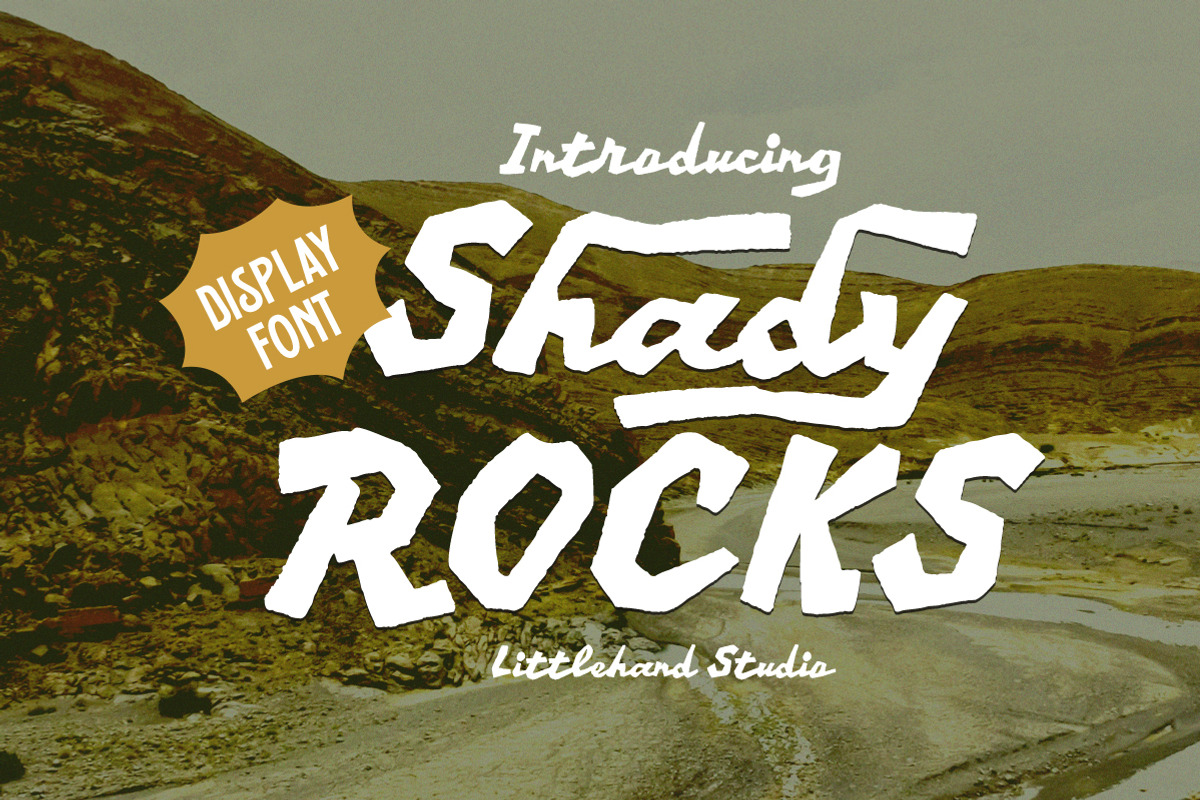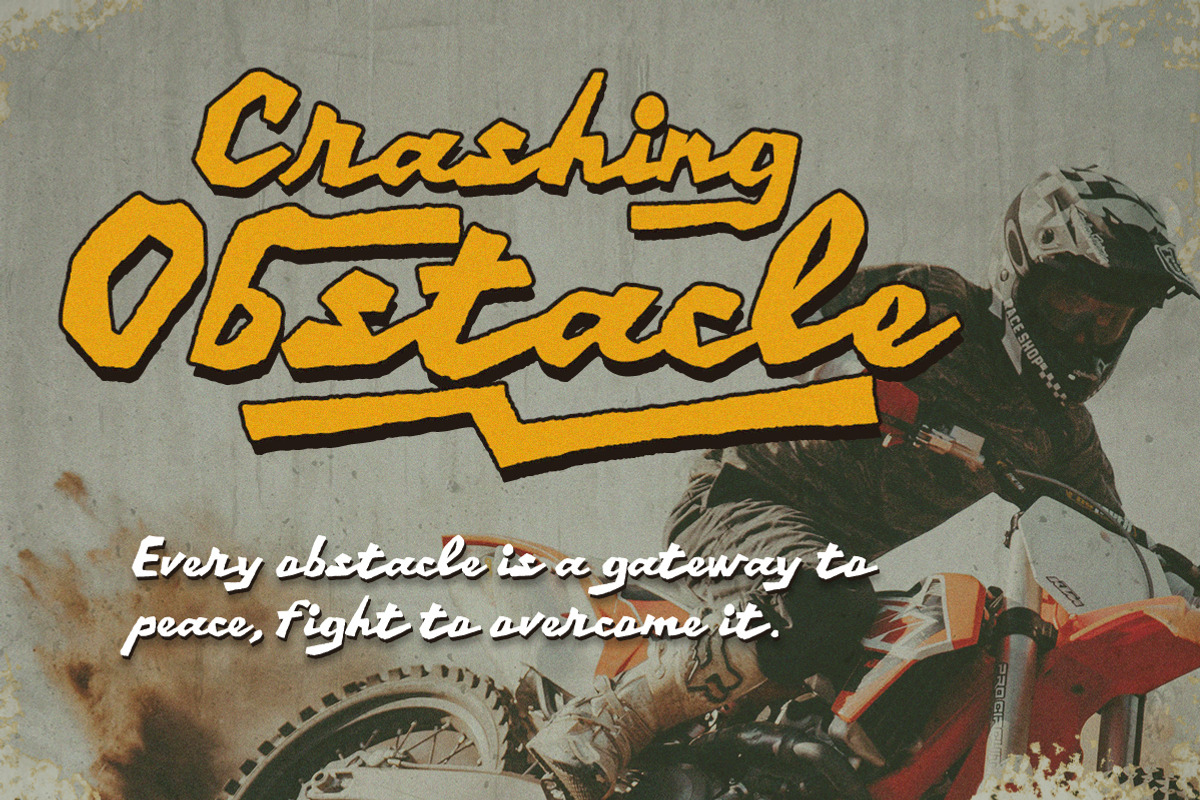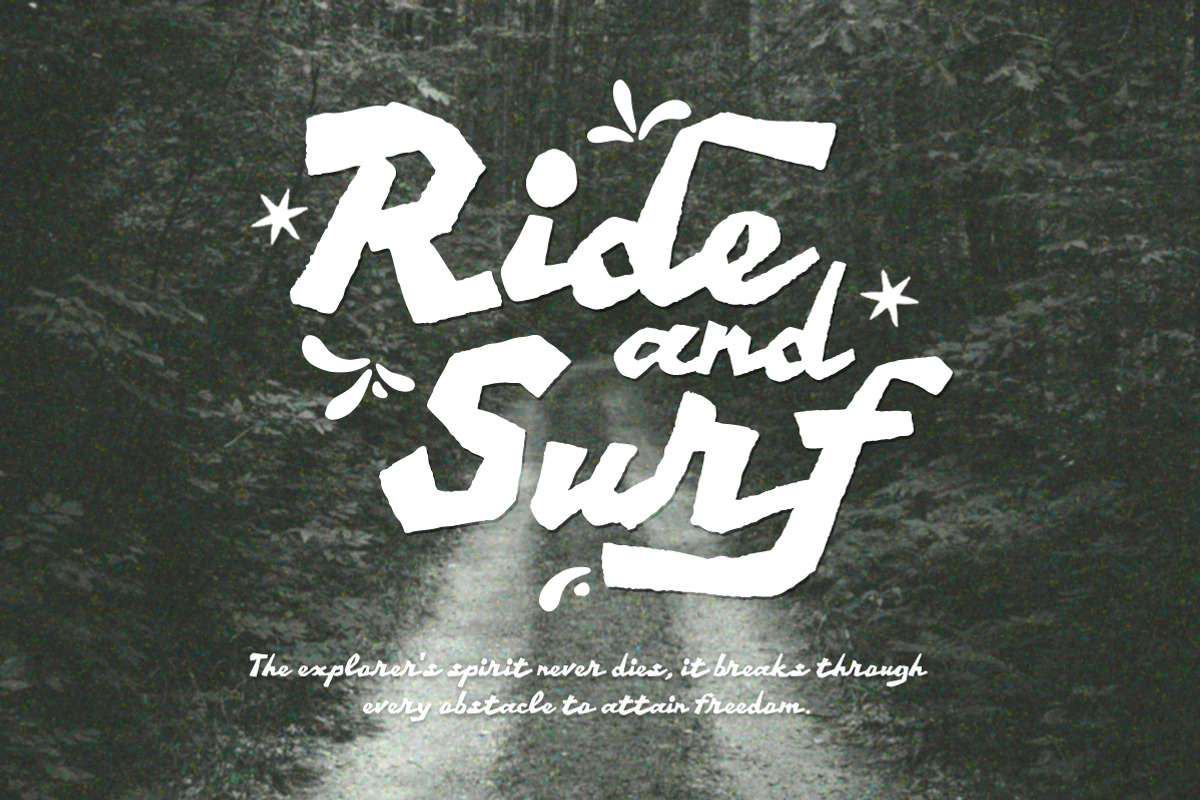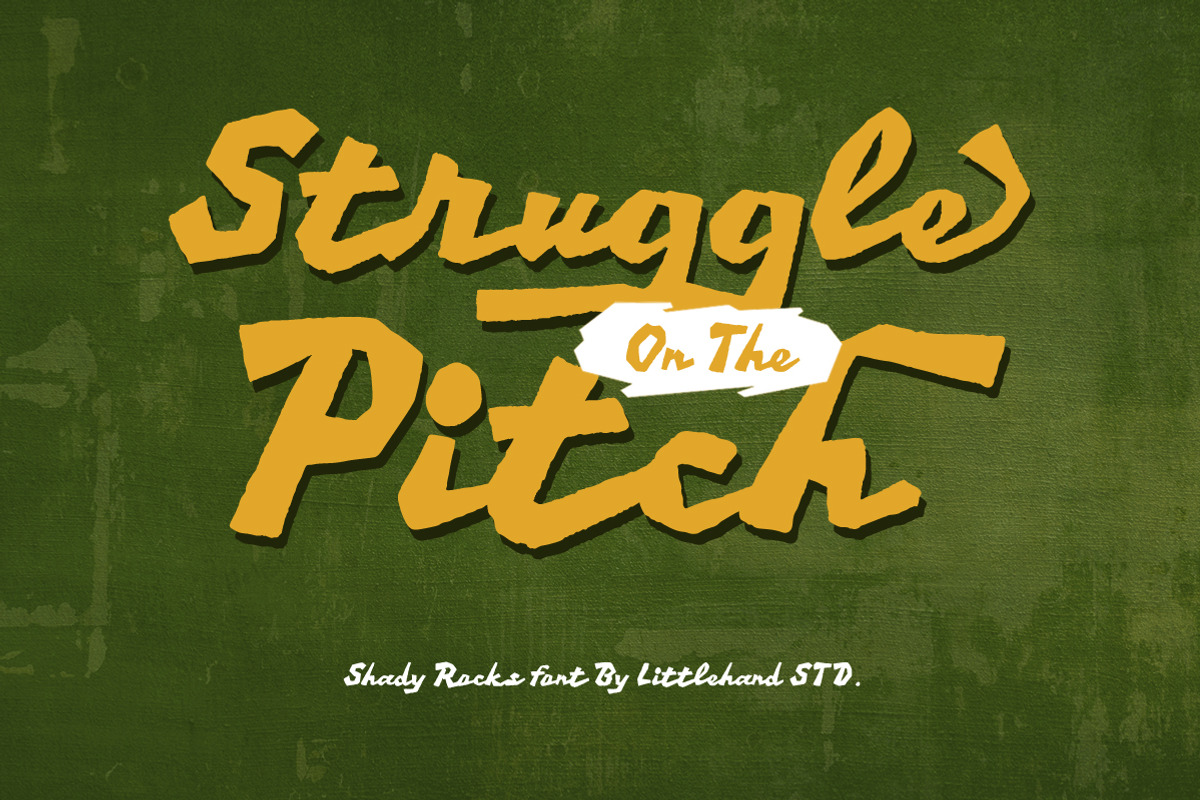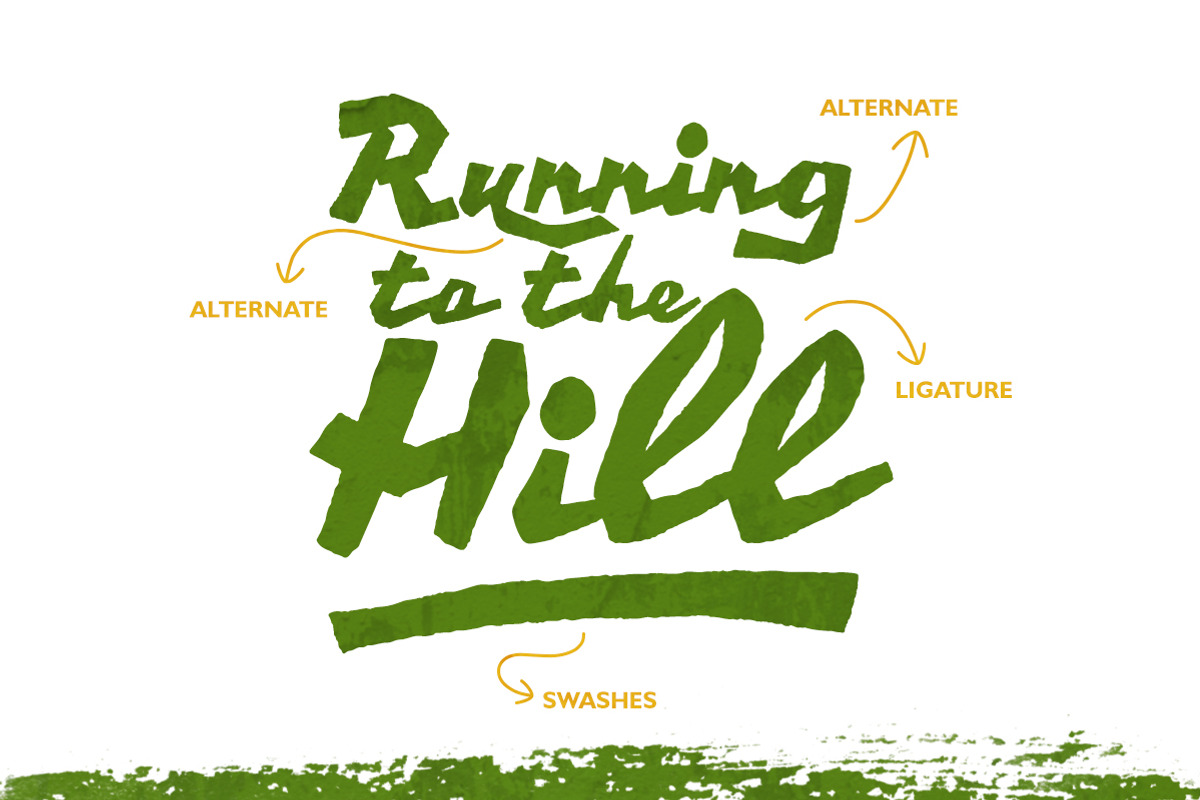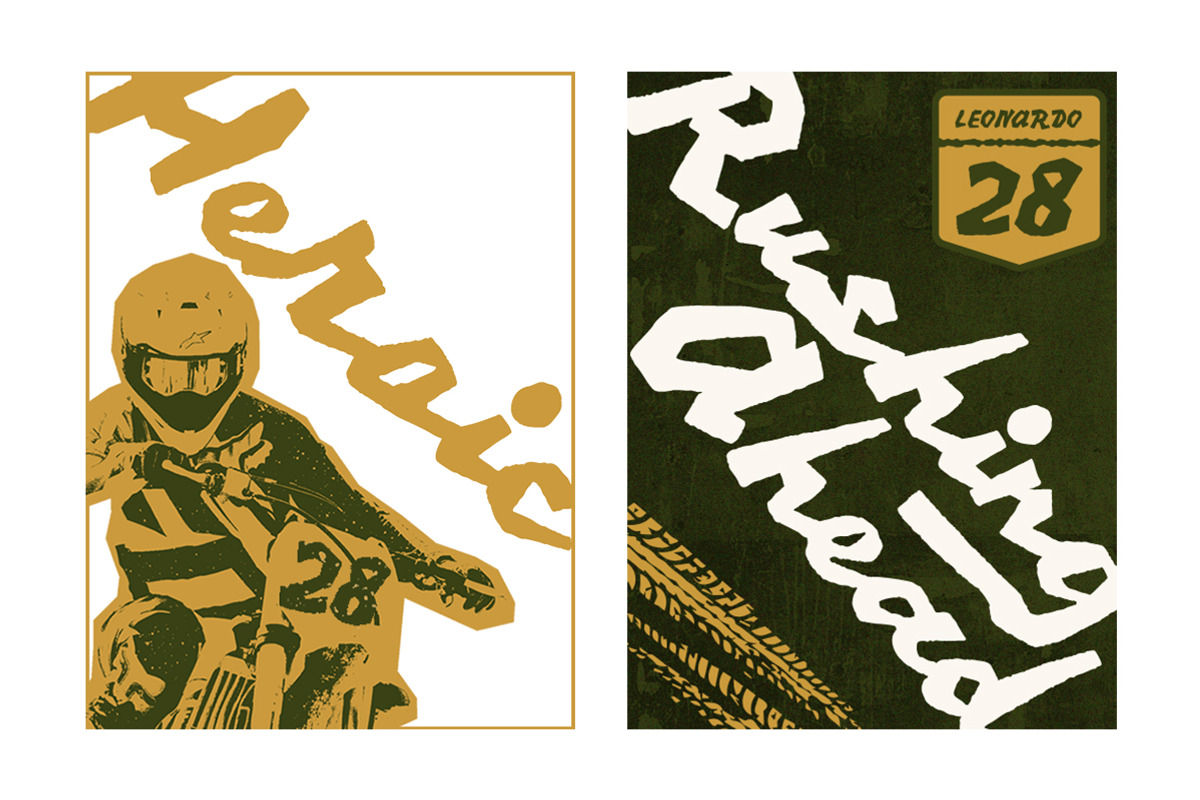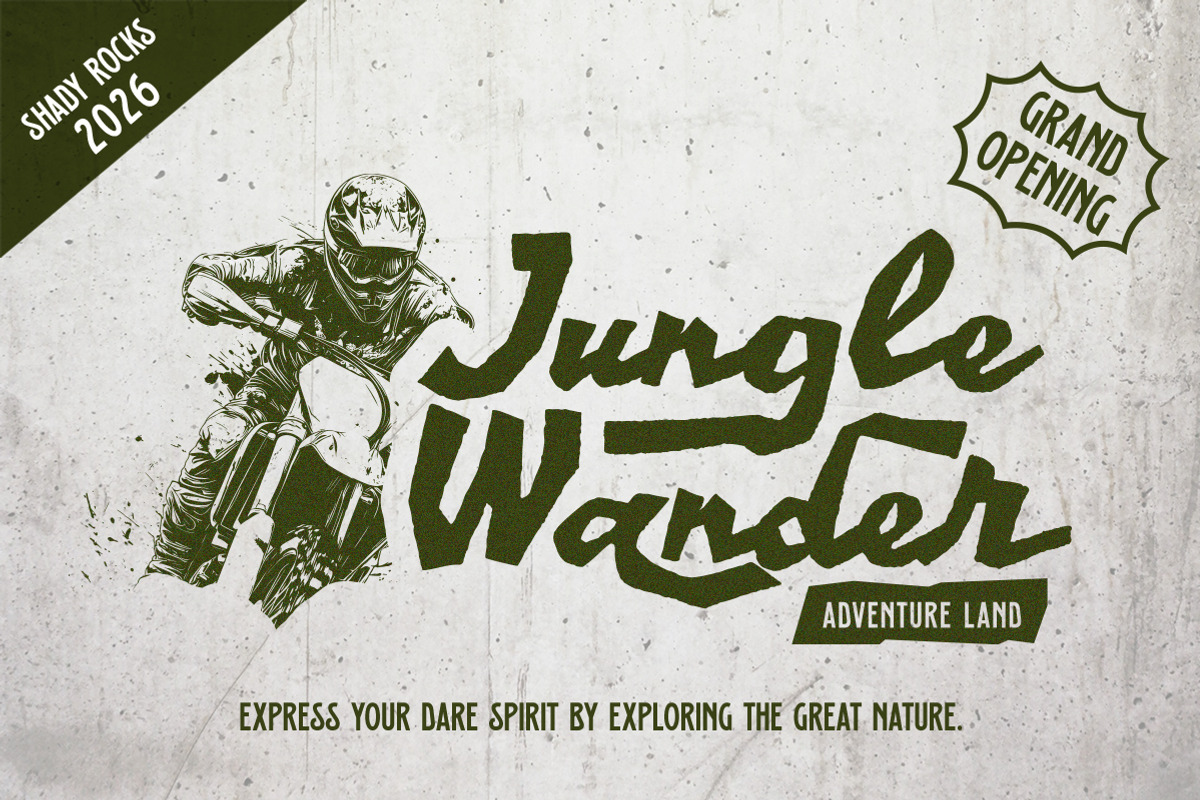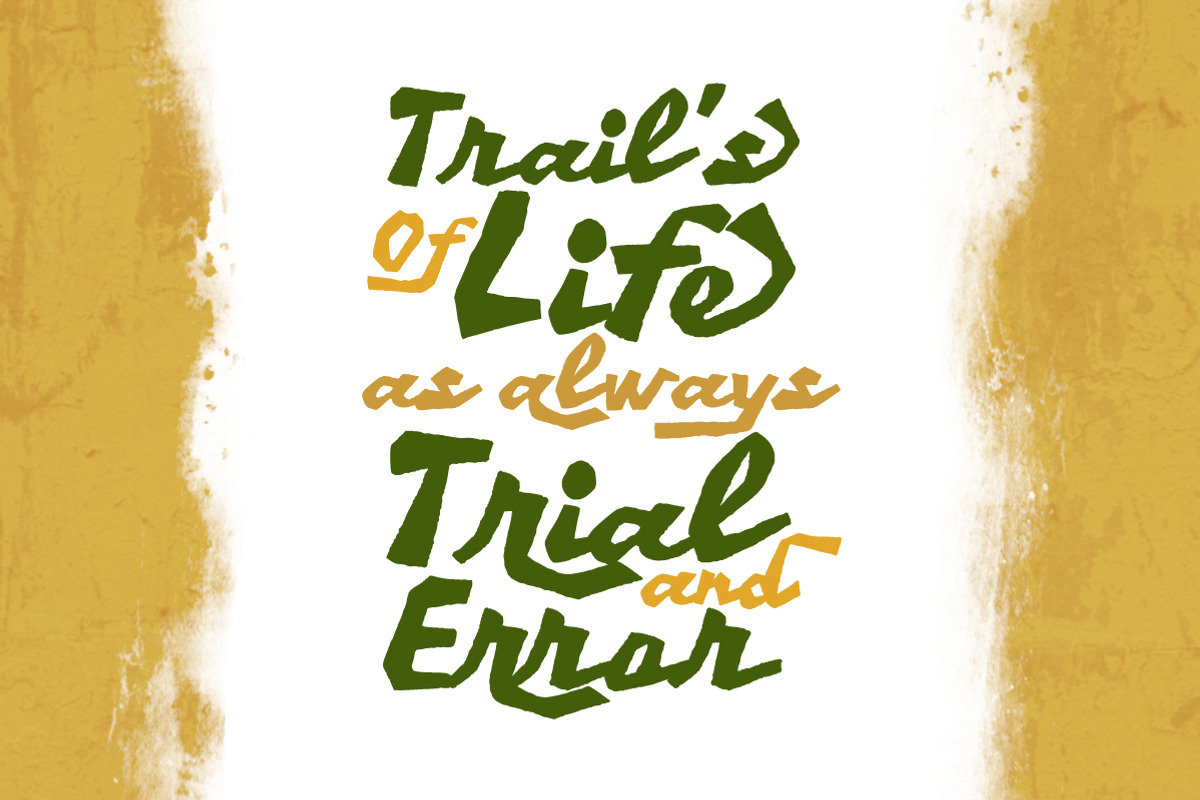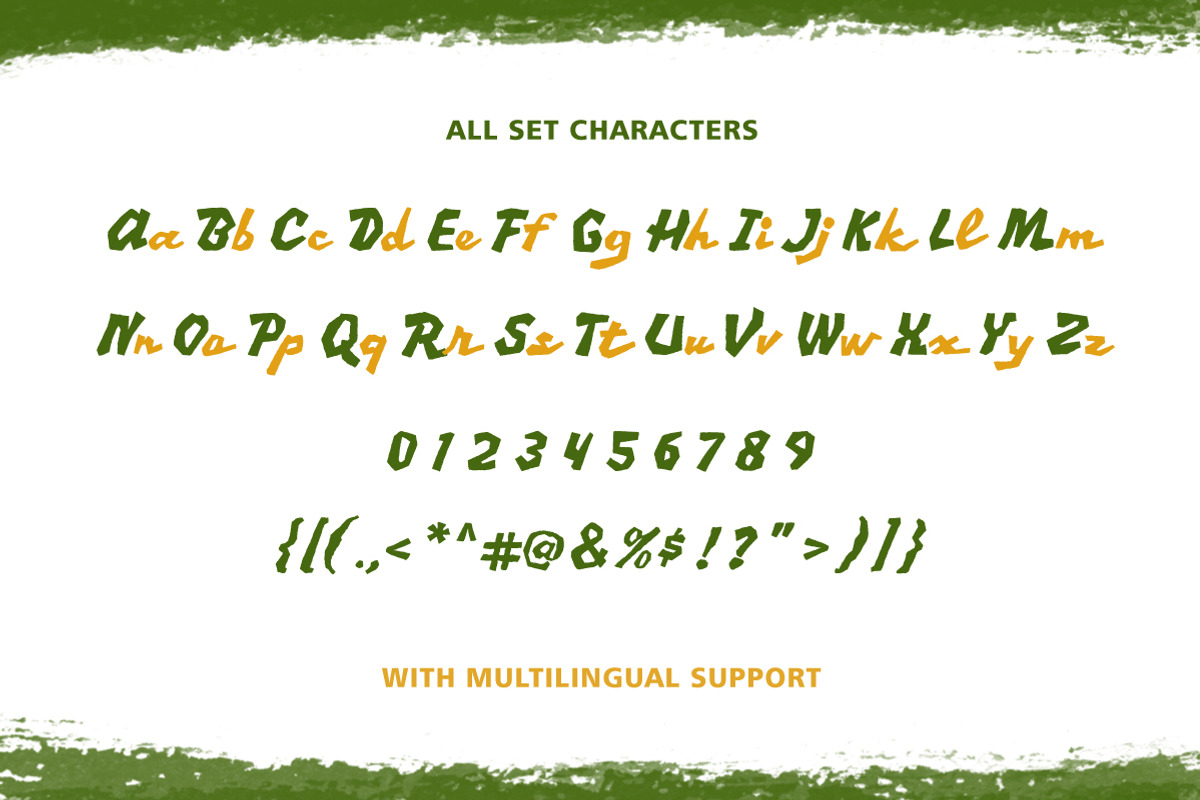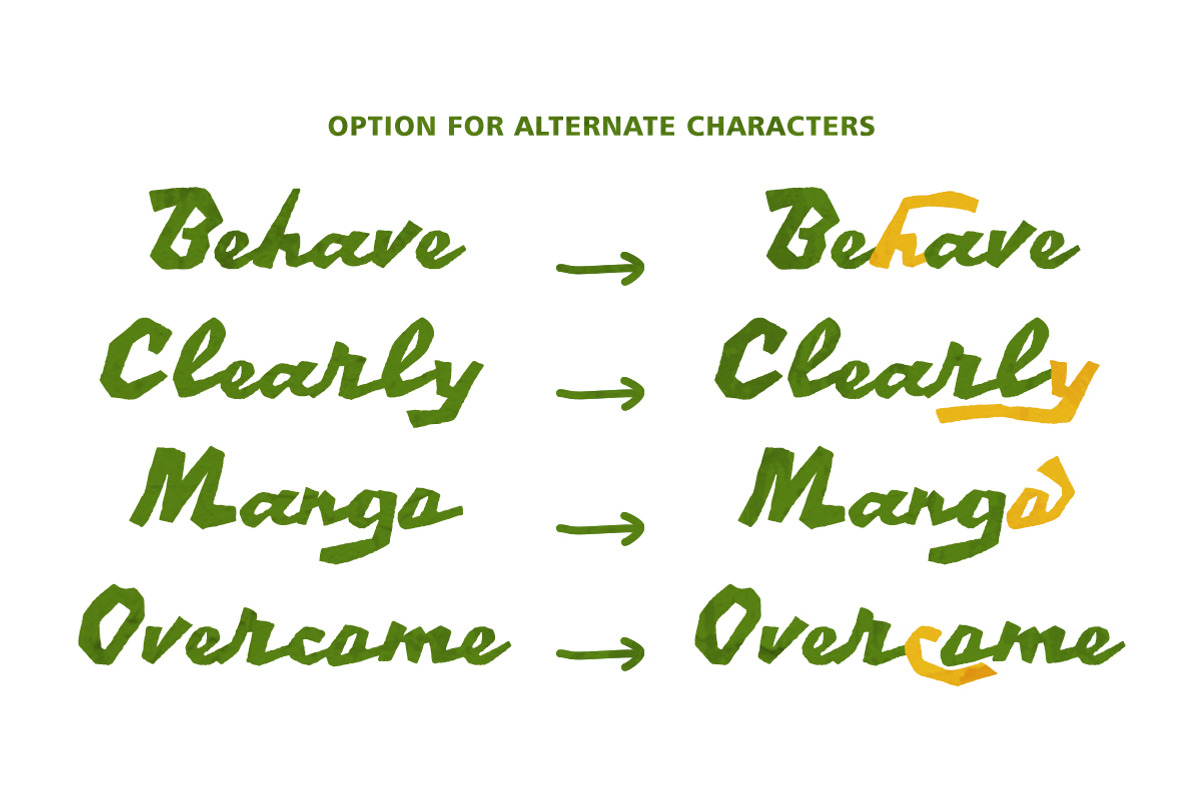
Shady Rocks Handcrafted Display Font
Bring raw energy to your next creative project with Shady Rocks, a bold display font designed to make every word stand out. Featuring hand-drawn imperfections and organic brush textures, this typeface captures the spirit of exploration, road trips, and vintage craftsmanship.
Uppercase & lowercase
Numbers and punctuation
Alternate Characters